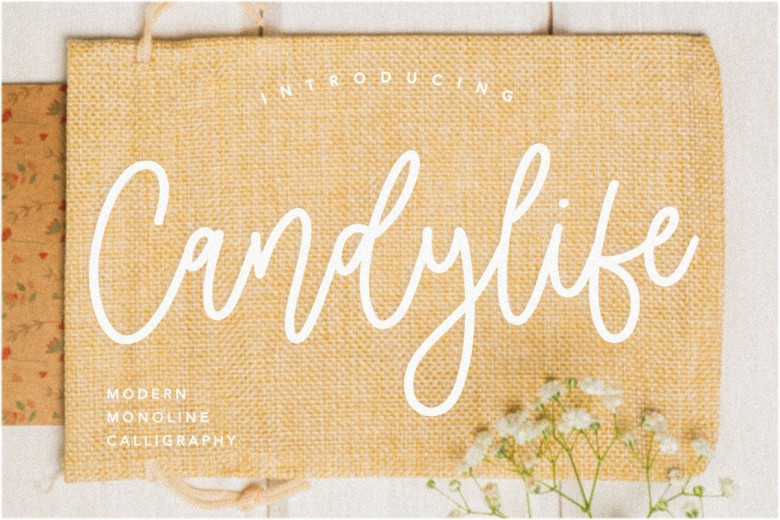
Candylife Handwritten Script Font
Candylife Font is a type of modern handwritten signature that is carefully crafted to give the impression of natural handwriting that offers the character of each letter so that it can be used in various design fields such as brands, packaging, logos, special events, business cards, wedding invitations, social media posts, magazines and the other.